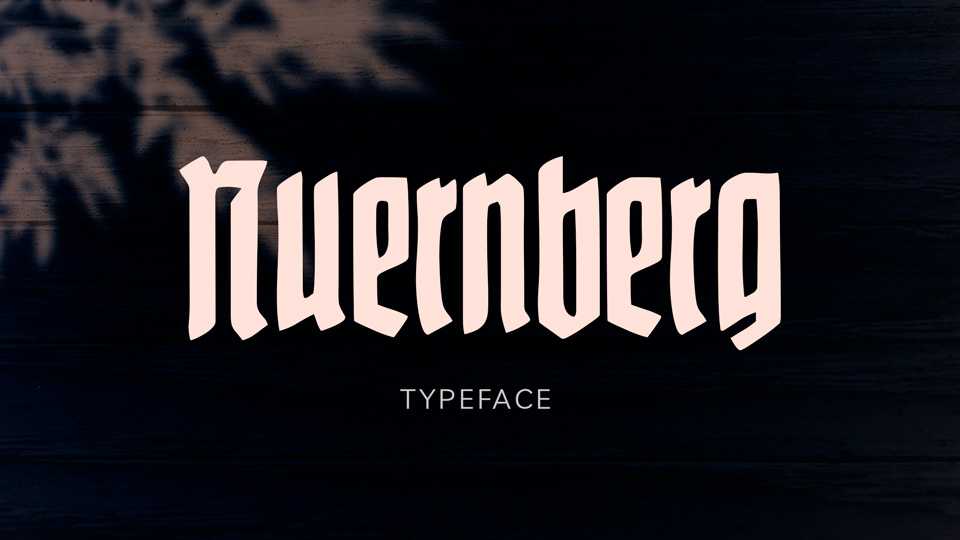
Download Nuernberg font, a blackletter typeface, a digitalized version from the handbook of fonts (in lead up to 1940). Nuernberg font is suitable for old style posters, vintage designs and other authentic projects.